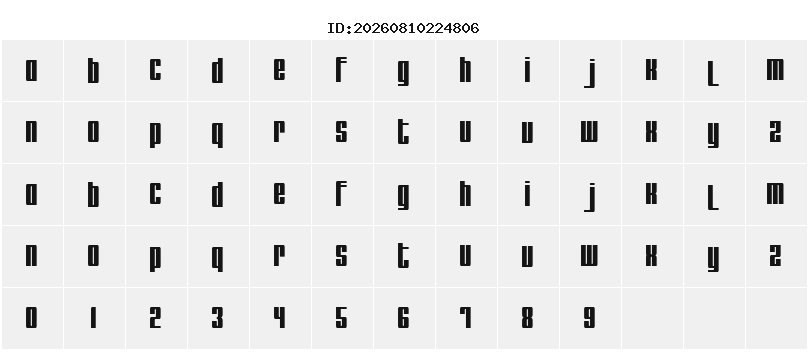
• Font Name: remakeoffabulous2
• Font Style: Light
• Font ID: remakeoffabulous2 Light
• Full Font Name: remakeoffabulous2 Light
• Copyright: designed by Dieter Schumacher, fabulous original by Ray Larabie Fonts
About remakeoffabulous2.ttf
remakeoffabulous2.ttf is a modern, elegant sans-serif font designed for ultimate readability and visual harmony. Perfect for branding, headlines, web design, and print materials.